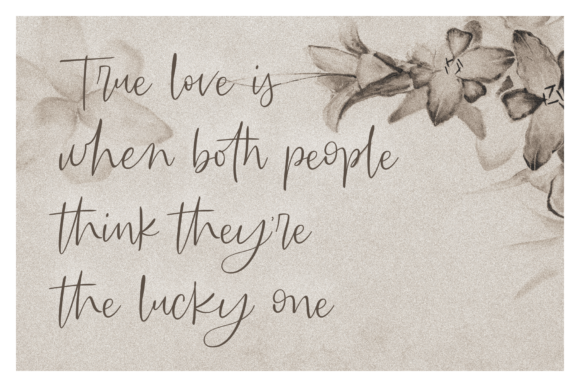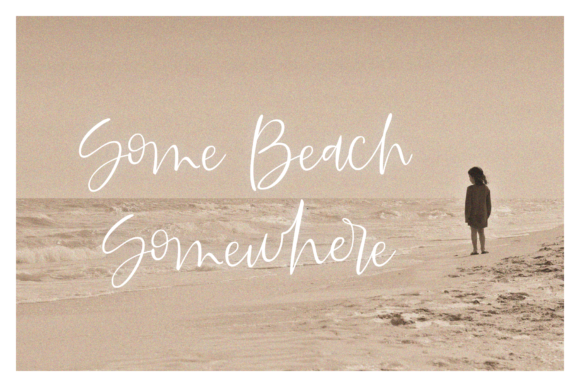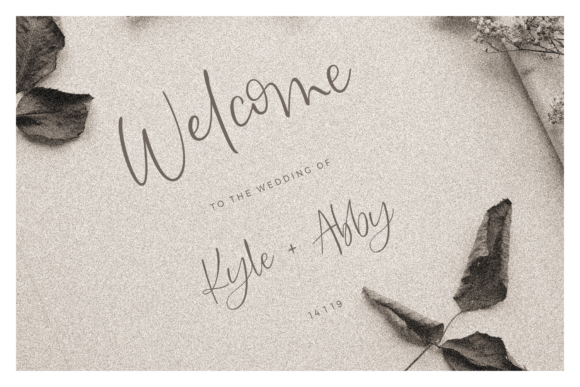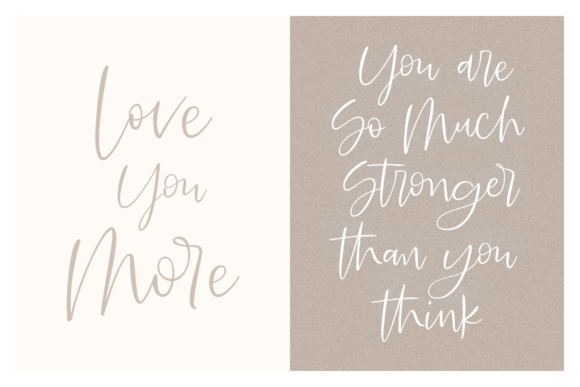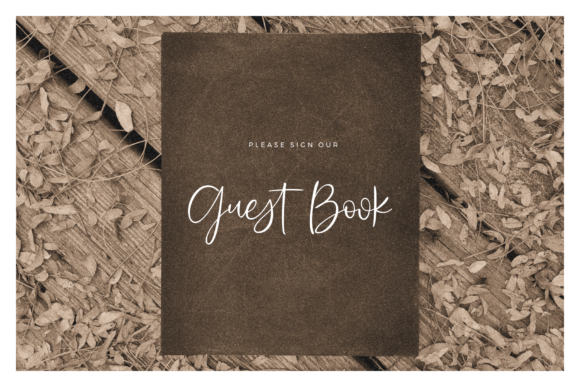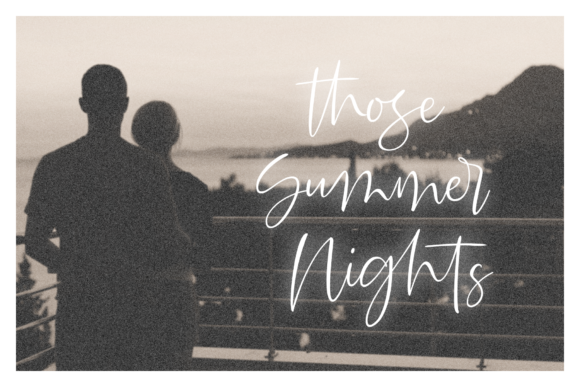
Introduction to Searches Font
Imagine you’re working on a creative project, and you’re stuck on finding the perfect font to match your design. The struggle is real, but what if I told you that the perfect font is just a click away? With the Searches Font, you can bring a touch of elegance and playfulness to your design, making it stand out from the crowd.
About Searches Font
The Searches Font is a bold and messy script font that’s perfect for designers who want to add a unique touch to their work. Its lovely movements give it a fun and elegant feel that’s sure to impress. Whether you’re working on a personal project or a commercial design, the Searches Font is a valuable resource that’s sure to elevate your design game.
Why You’ll Love Searches Font
Key Features of Searches Font
- Includes a comprehensive set of glyphs and characters, making it suitable for a wide range of creative applications.
- Supports various font sizes and styles, from small captions to large headings, making it a versatile design tool.
Honest Review: Searches Font
I recently had the chance to work with the Searches Font for a creative project and I must say, it was a great experience. The Searches Font is a high-quality design resource that can really elevate the look of any digital product.
What works well: ✨ The Searches Font has a very modern and sleek design that looks amazing on both light and dark backgrounds. It’s also available for free download, which is a huge plus for designers on a budget. I also appreciated the transparent background option, which gave me more flexibility when designing.
However, there are a few limitations to consider: ⚠️ The Searches Font only comes in a limited number of styles, which may not be suitable for every project. Additionally, the font can be a bit difficult to read at smaller font sizes.
Overall, I was really impressed with the Searches Font and would definitely recommend it to other designers. It’s a great addition to any design toolkit and can really help take your projects to the next level.
Here are some of the key features of the Searches Font:
- Modern and sleek style
- Limited number of styles
How to Use Searches Font
Tips for Getting the Most Out of Searches Font
Use the Searches Font in combination with other design elements to create a cohesive and visually appealing design. Experiment with different font sizes, colors, and styles to find the perfect look for your creative project.
The Searches Font is perfect for: